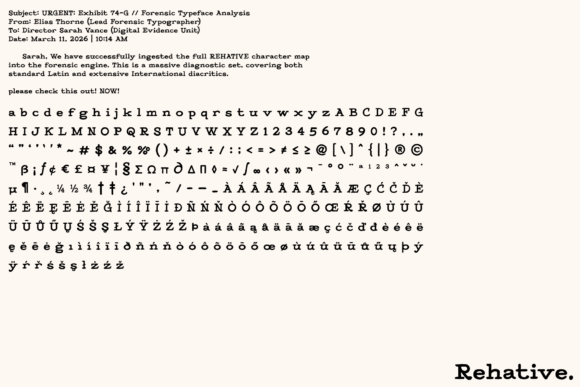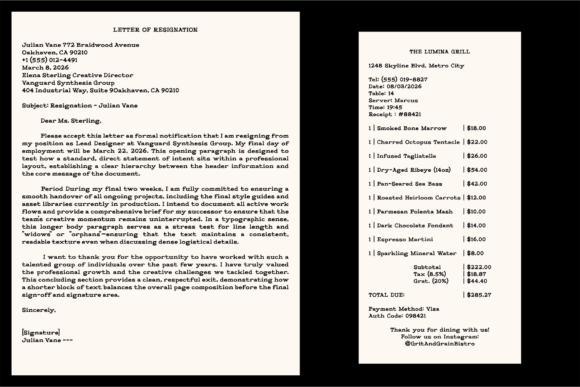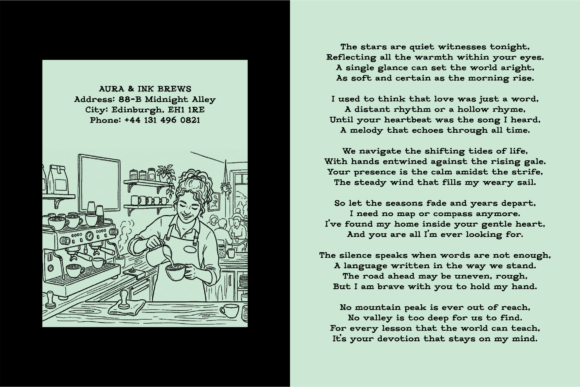
Introduction to Rehative Font
Rehative is a masterful serif typeface that captures the tactile, rhythmic essence of the mechanical typewriter era.
Perfect for editorial layouts, nostalgic branding, and storytelling, this font brings a β€œpercussive symphony” to the screen Whether you are channeling the spirit of a Hemingway-esque traveler or designing a clean, modern interface with a vintage soul, Rehative offers a unique blend of sharp precision and organic warmth.